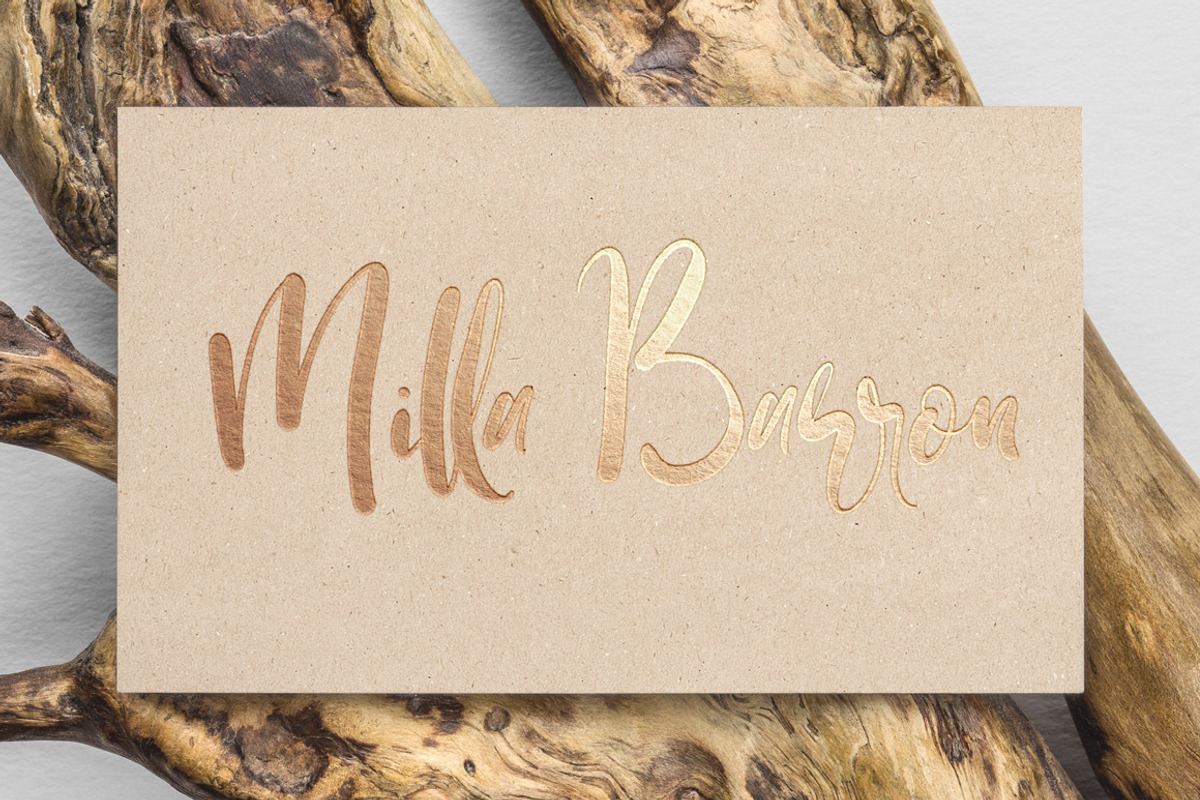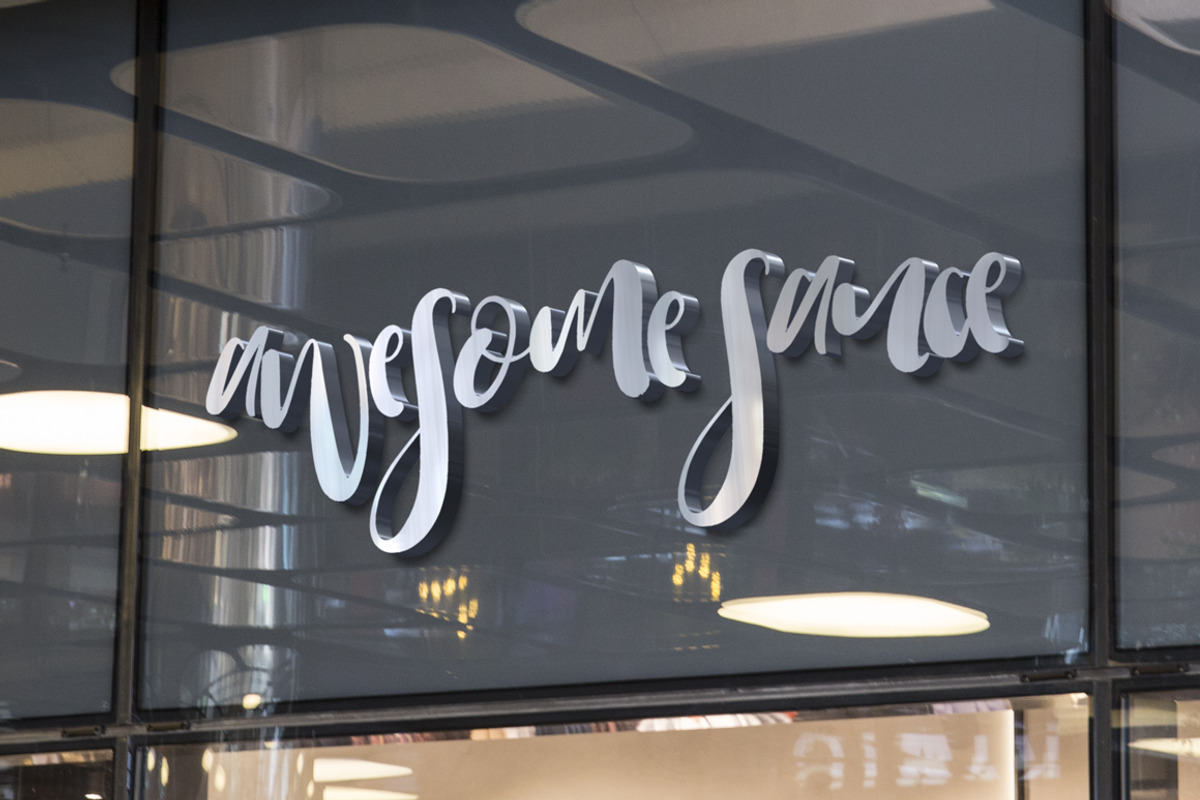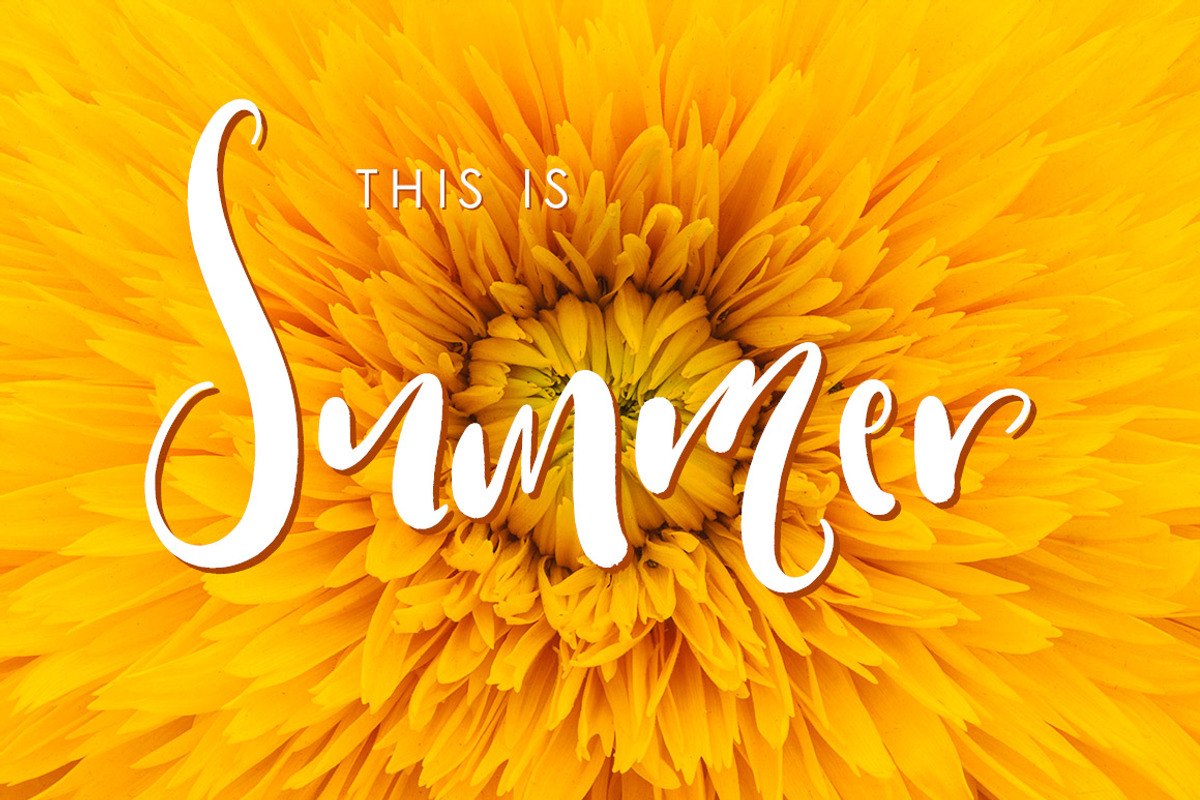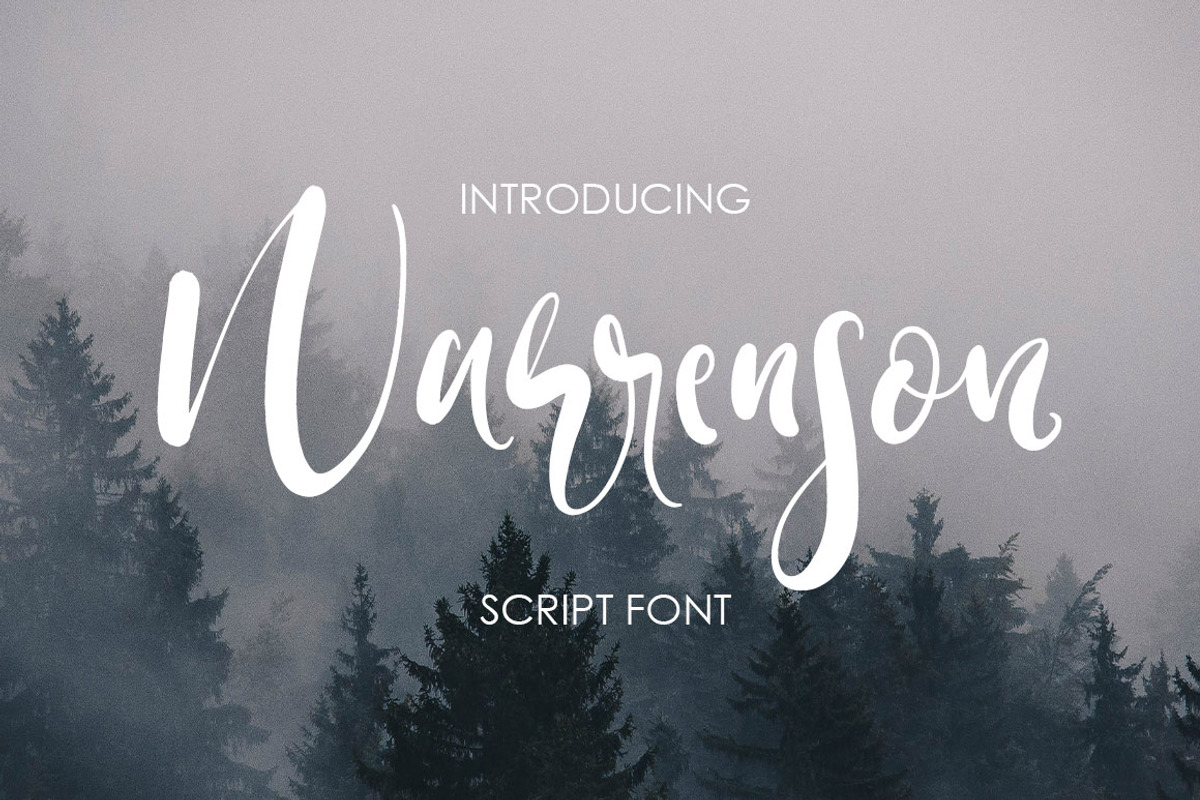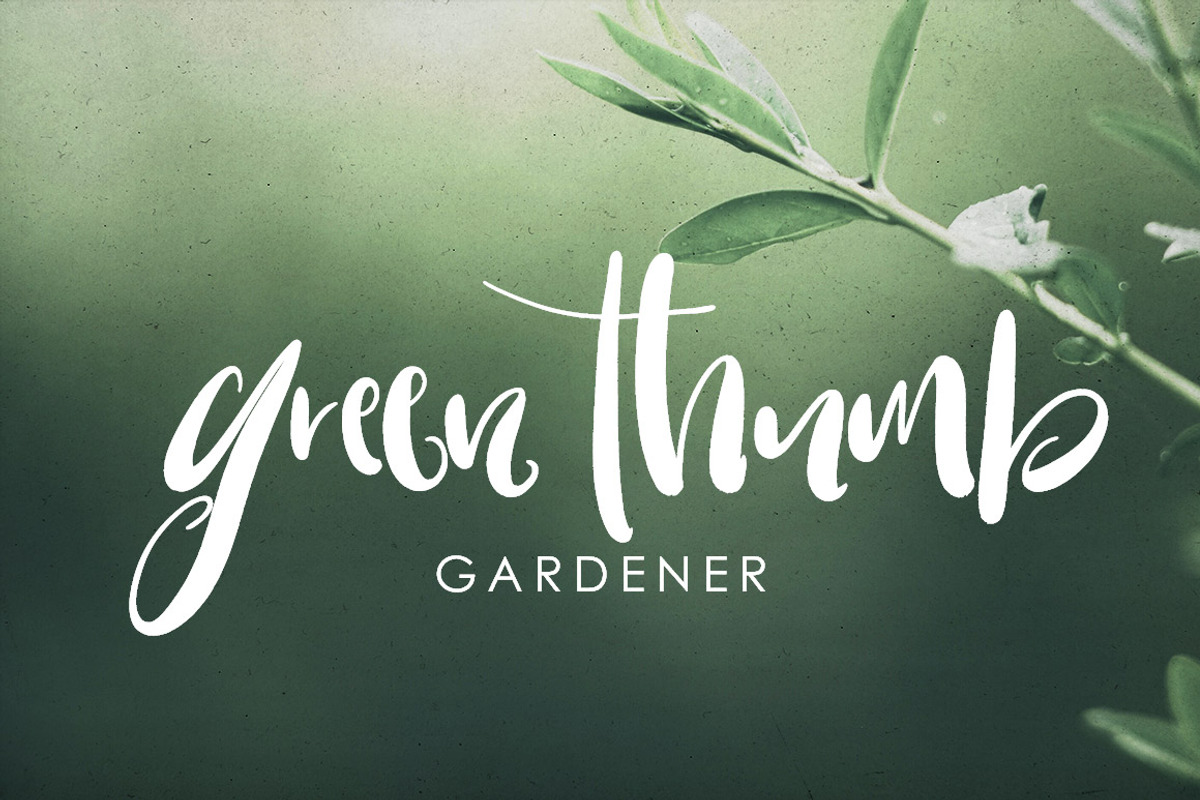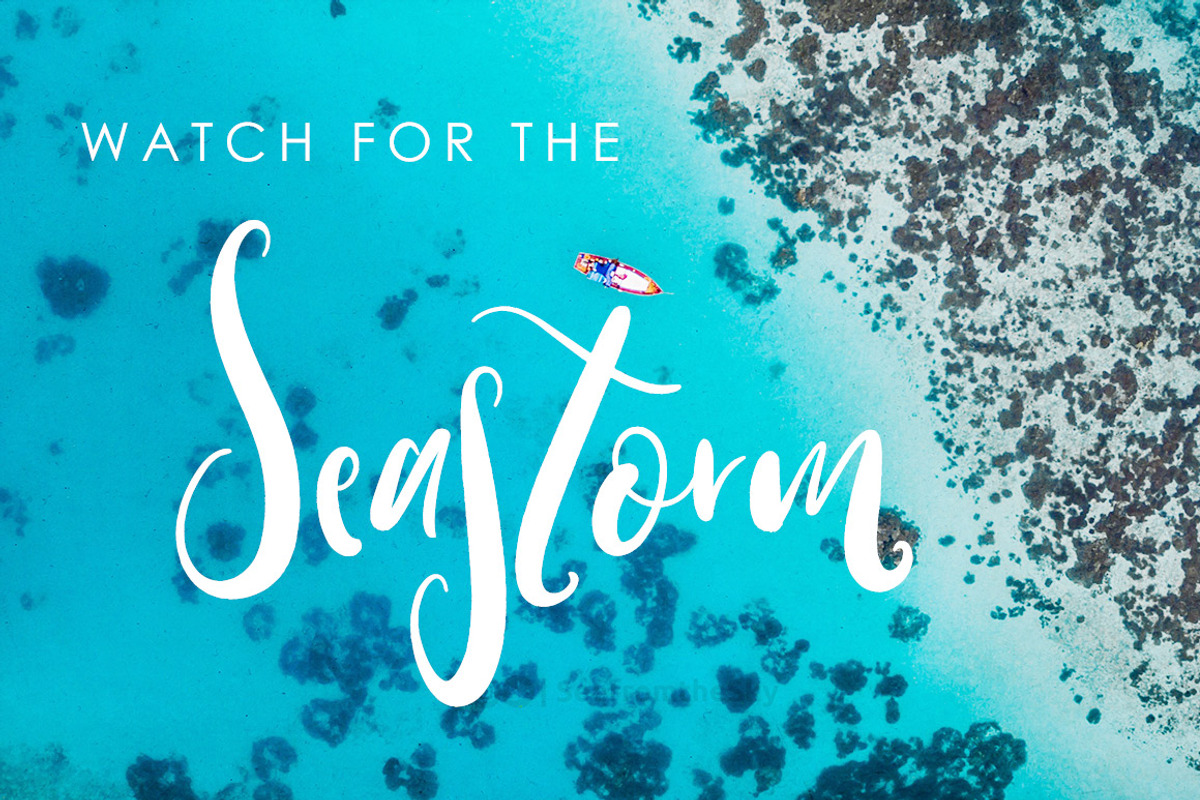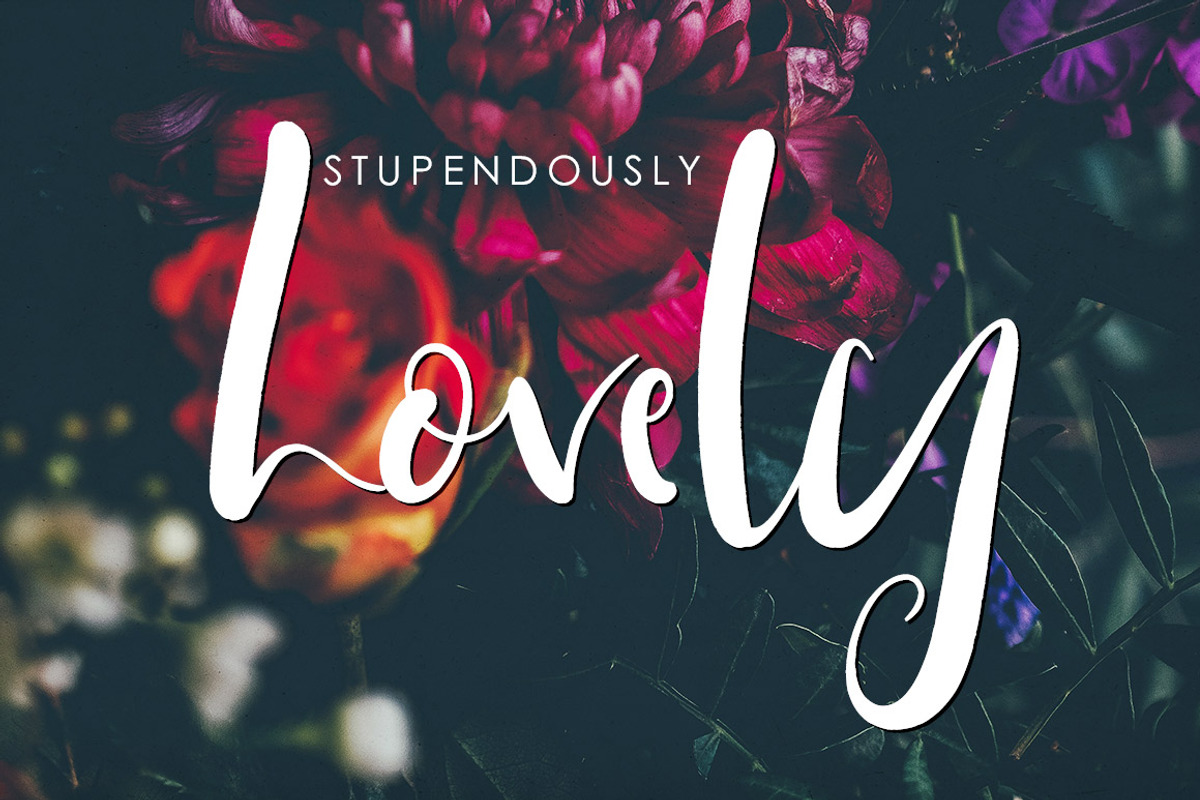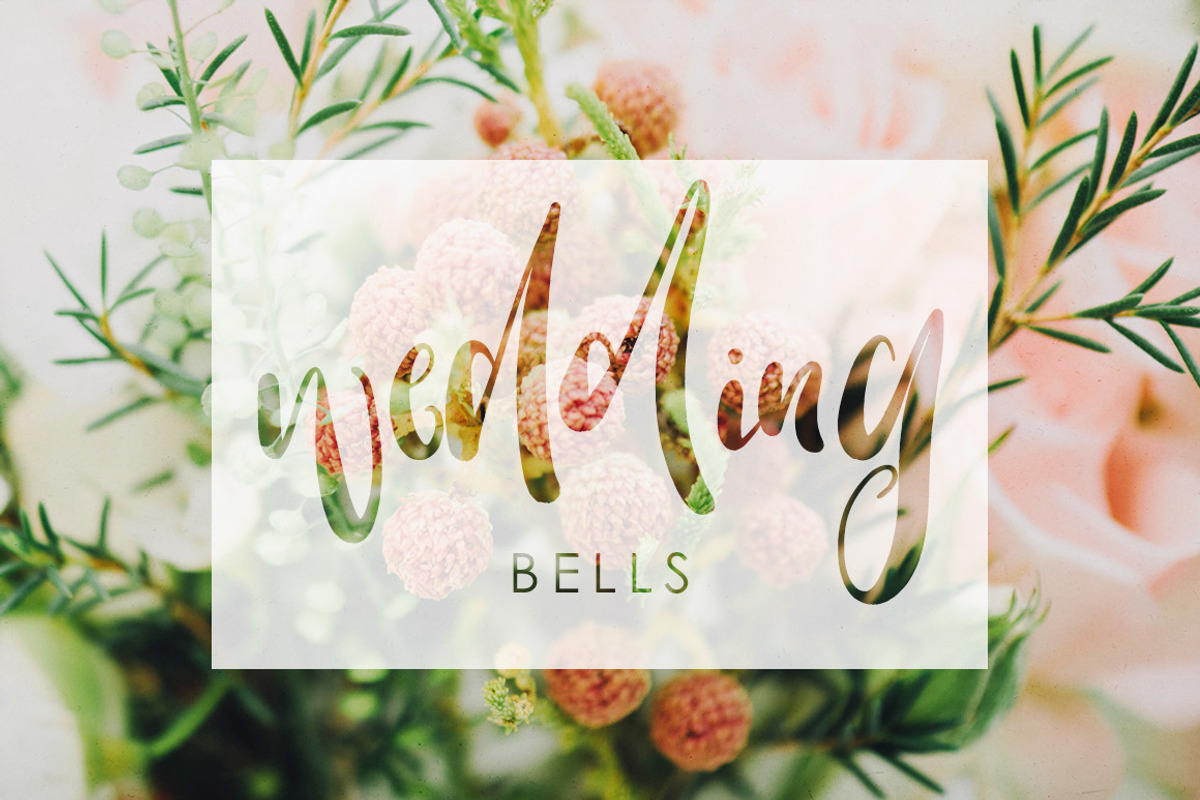
Warrenson Script Font
And another awesome font from Creativeqube - Warrenson!
Warrenson has so much adorable bouncy character, with a smooth outline and bold thickness.
Warrenson supports international languages.
- Included in the font files are lots of awesome alternates, bold and italic versions, all helping create that amazing hand lettered look.
Why Warrenson Script Font is worth a look
Warrenson Script Font by Creativeqube Design fits naturally into Branding, posters, packaging, typography.